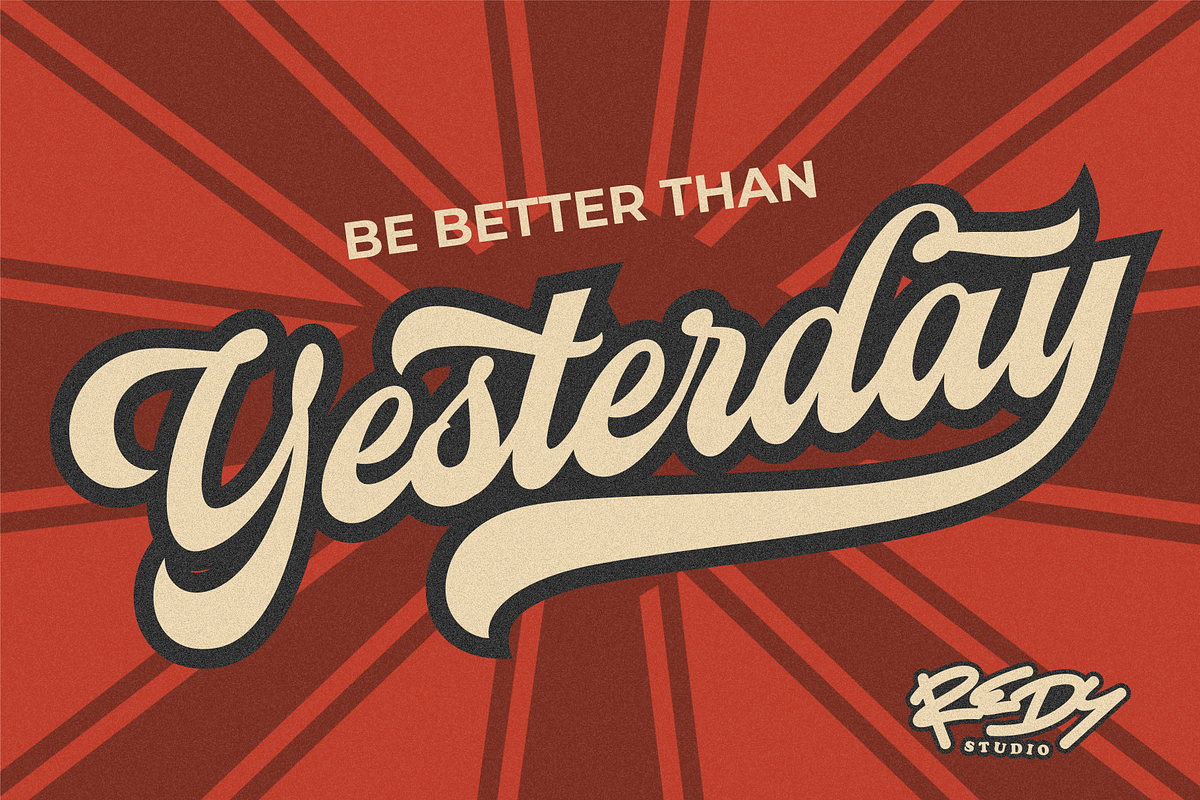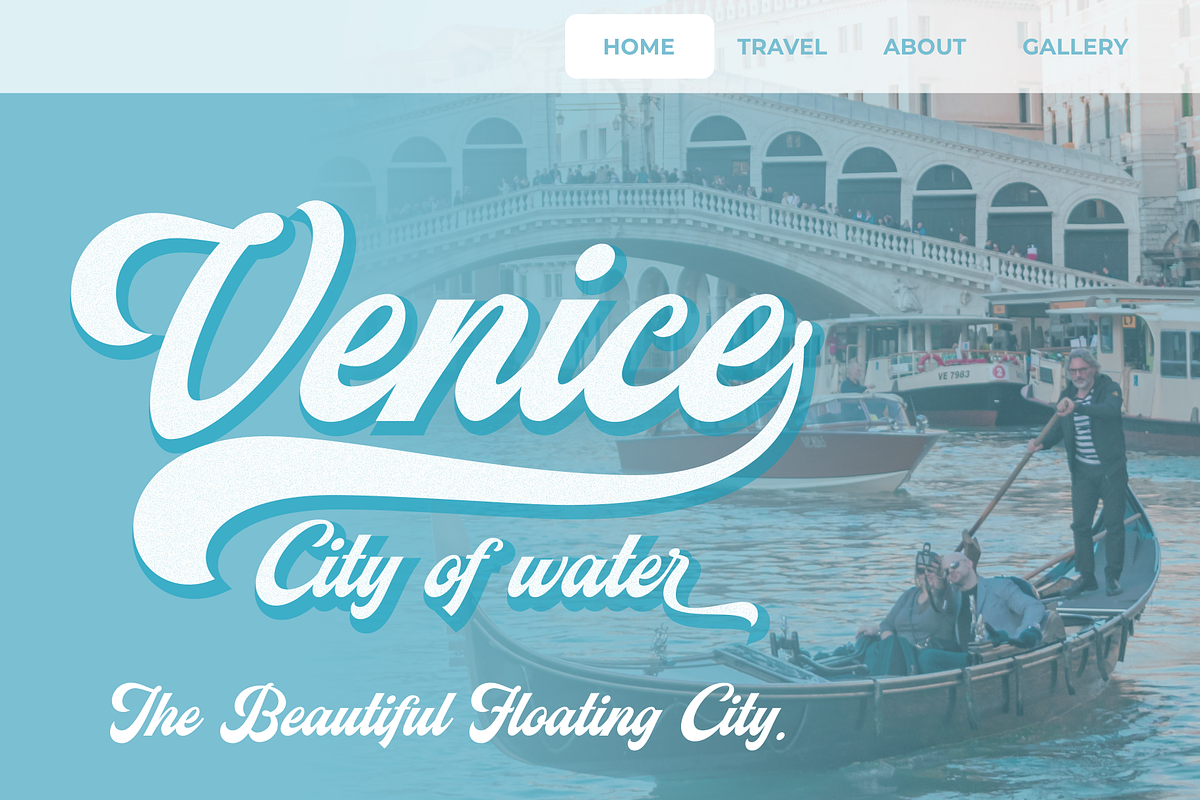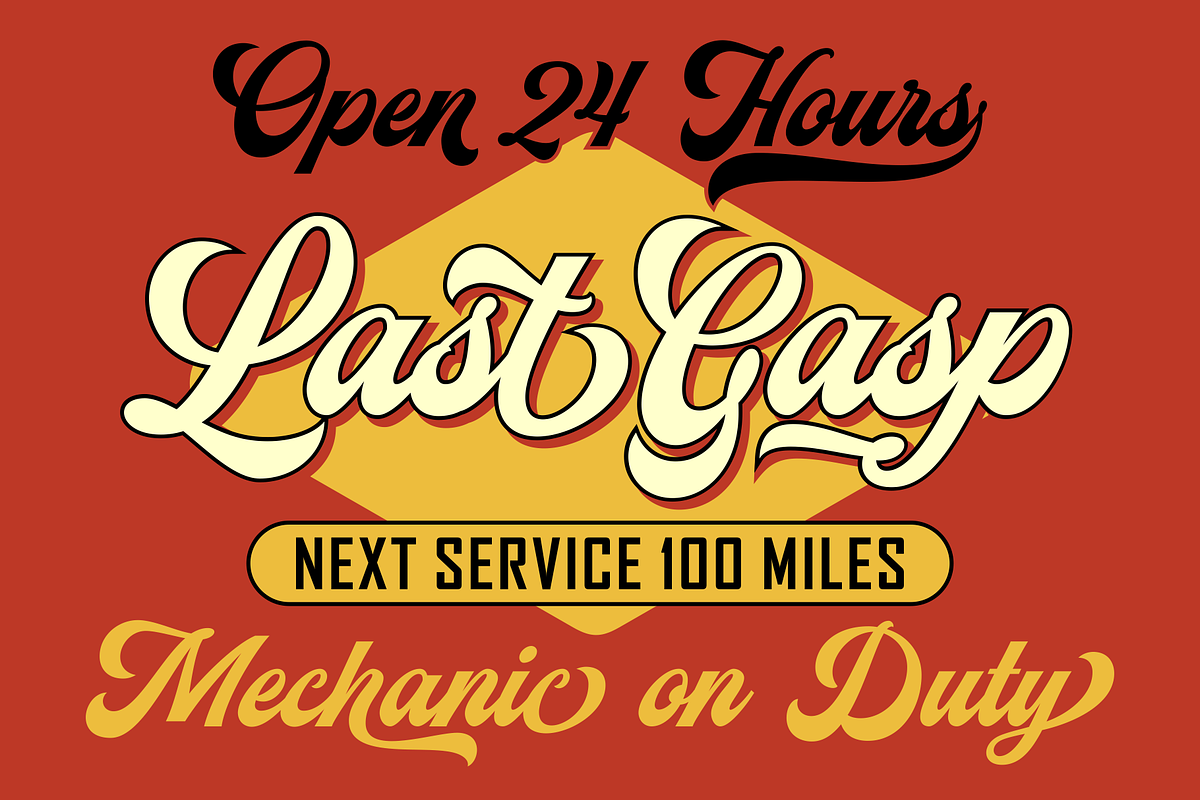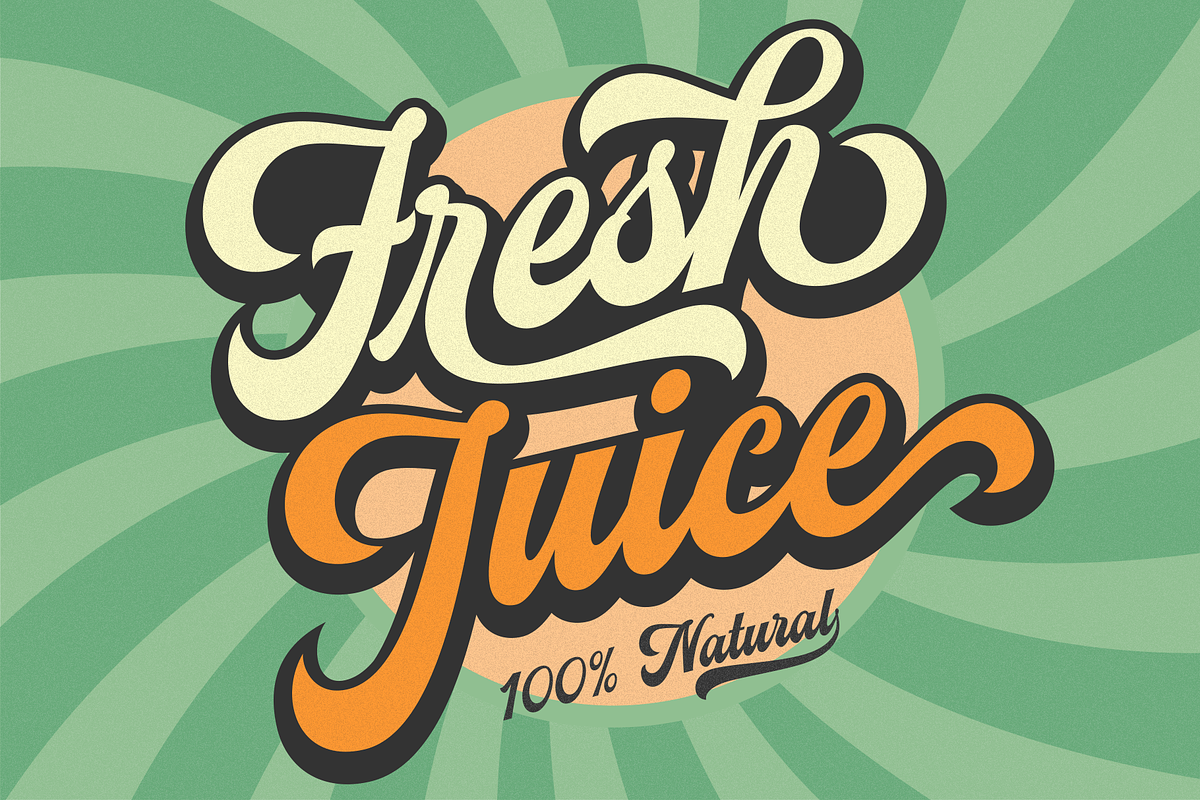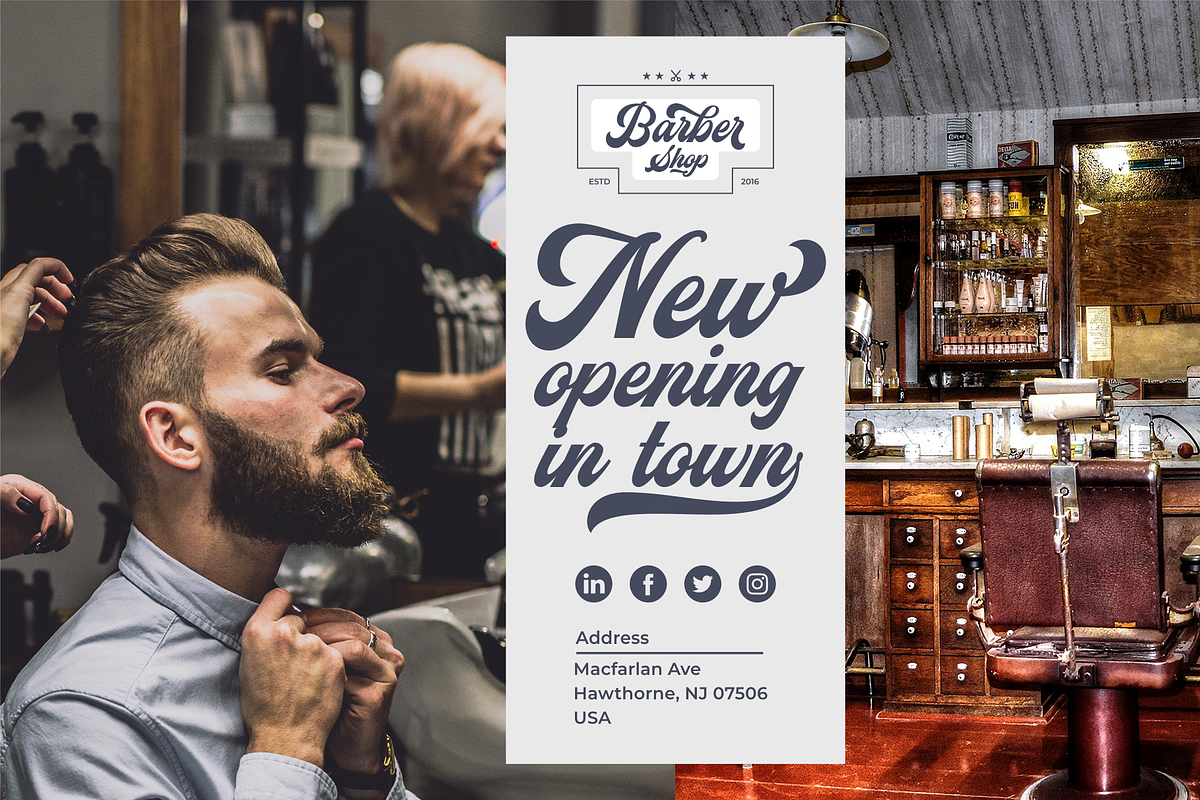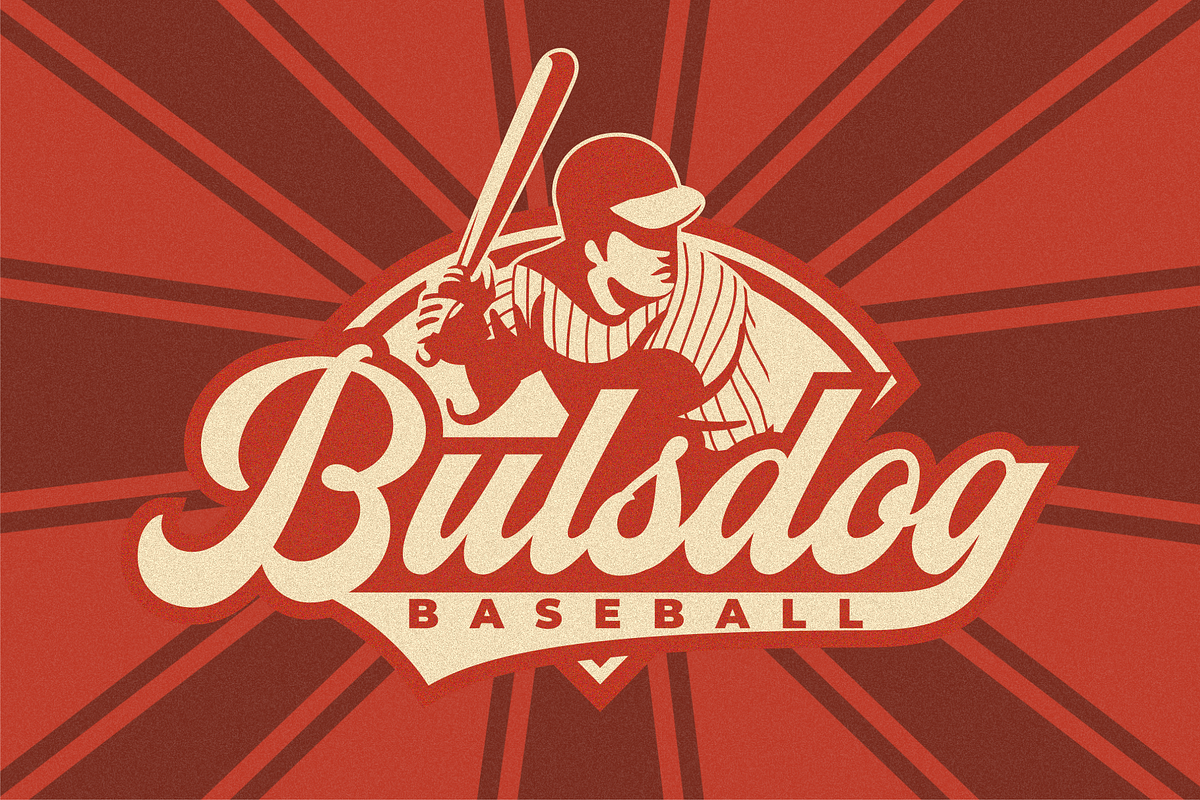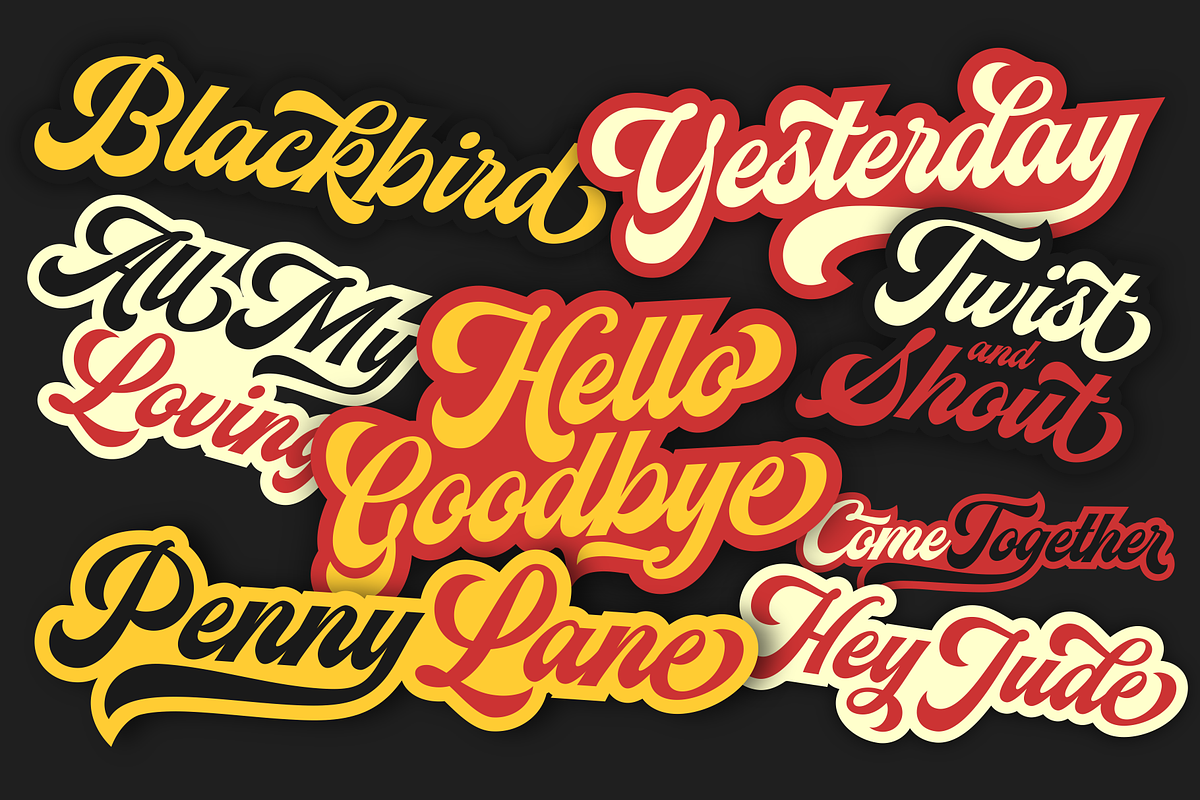
Streetball Vintage Font
Streetball Vintage Font. This font is a handwriting font style that was inspired by baseball sport. The font features many alternative characters that can be used to enhance your creative works. This font is good for display with a combination of vintage, hipster, retro, and stylish looks.
Streetball Vintage Font was designed with several precision layers to ensure an excellent display and it contains a total of 511 glyphs and 4 different lowercase ending swashes. Streetball Vintage Font is great for Logotype, Advertising, Namecard, Poster, Flyers, Card, and many more. Make Streetball a part of your creative projects and make it more fun!
A full set of upper & lowercase characters
Numbers & punctuation
Hundreds of Alternates
4 different lowercase ending swashes
Streetball Vintage Font by RedyStudio fits naturally into Branding, posters, packaging, typography.